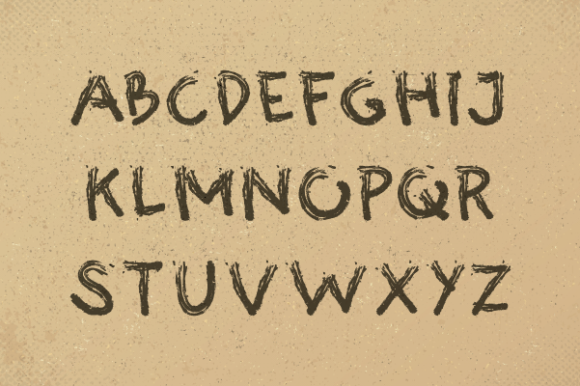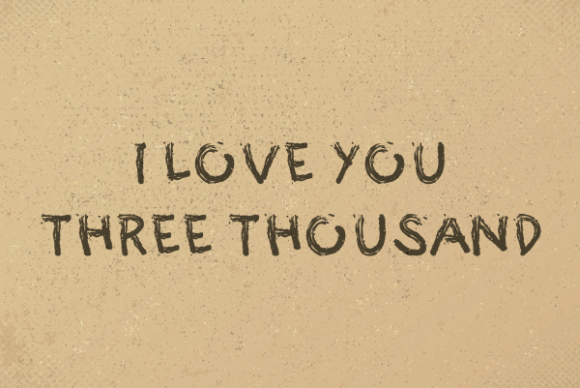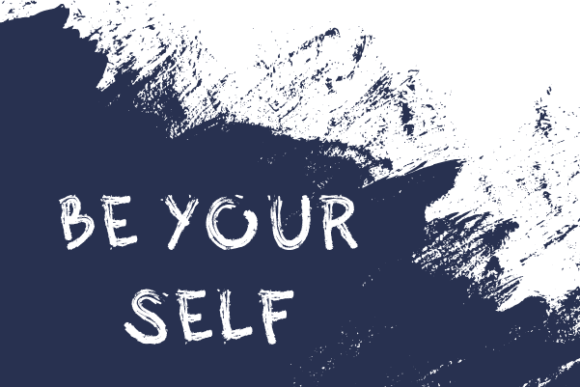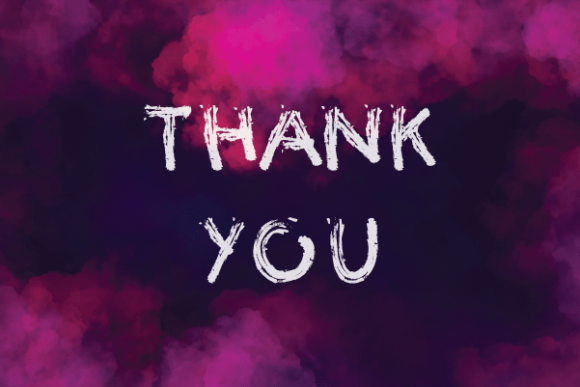
Introducing Brushow Font: Elevate Your Designs with a Vintage Flair
Are you on the lookout for a font that can add a touch of nostalgia and sophistication to your creative projects? Look no further than Brushow Font, a simple yet stunning vintage-styled brushed display font. With Brushow, you can instantly elevate your designs and make them stand out from the crowd.
The Charm of Brushow Font
Brushow Font boasts a unique, hand-brushed aesthetic that exudes a sense of warmth and character. Its vintage vibe is reminiscent of classic signage and posters from the past, making it perfect for designers and crafters who want to add a touch of nostalgia to their work. Whether you’re creating a logo, poster, or social media graphic, Brushow Font is sure to make your design pop.
Key Features of Brushow Font
- Simple yet striking: Brushow Font’s clean lines and simple design make it easy to read and understand, while its brushed texture adds a touch of elegance and sophistication.
- Vintage flair: Brushow Font’s vintage-inspired design makes it perfect for projects that require a nostalgic or retro feel.
- Highly versatile: Brushow Font can be used for a wide range of design projects, from logos and posters to social media graphics and more.
How to Use Brushow Font in Your Designs
Brushow Font is incredibly versatile and can be used in a variety of design projects. Here are a few ideas to get you started:
- Logos and branding: Use Brushow Font to create a unique and memorable logo that reflects your brand’s personality and style.
- Posters and flyers: Add a touch of vintage flair to your posters and flyers with Brushow Font, making them stand out and grab attention.
- Social media graphics: Use Brushow Font to create eye-catching social media graphics that showcase your brand’s personality and style.
- Invitations and cards: Add a touch of elegance and sophistication to your invitations and cards with Brushow Font.
Tips for Getting the Most Out of Brushow Font
To get the most out of Brushow Font, here are a few tips to keep in mind:
- Experiment with colors: Brushow Font looks great in a variety of colors, so don’t be afraid to experiment and find the perfect hue for your design.
- Play with textures: Brushow Font’s brushed texture is a key part of its charm, but you can also experiment with adding additional textures to create a unique look.
- Mix and match: Brushow Font pairs well with a variety of other fonts, so don’t be afraid to mix and match to create a unique look.
Brushow Font is a simple yet stunning vintage-styled brushed display font that can add a touch of elegance and sophistication to your designs. With its highly versatile design and user-friendly installation process, Brushow Font is perfect for designers and crafters of all skill levels. So why wait? Download Brushow Font today and start creating stunning designs that stand out from the crowd!